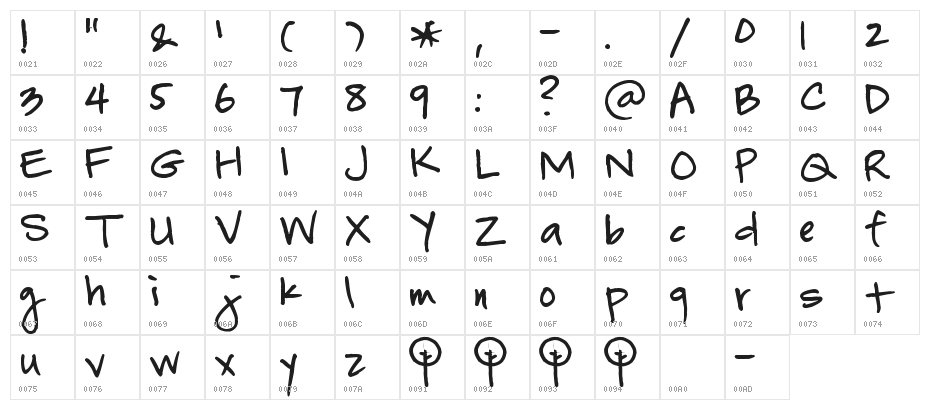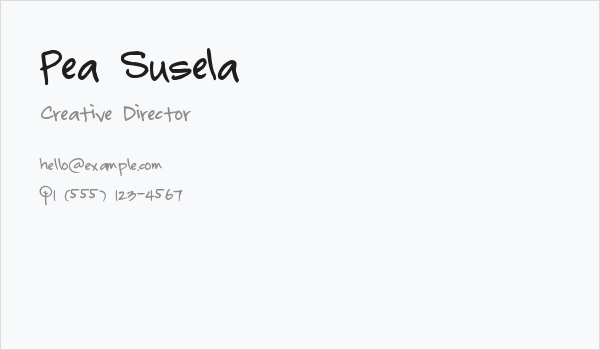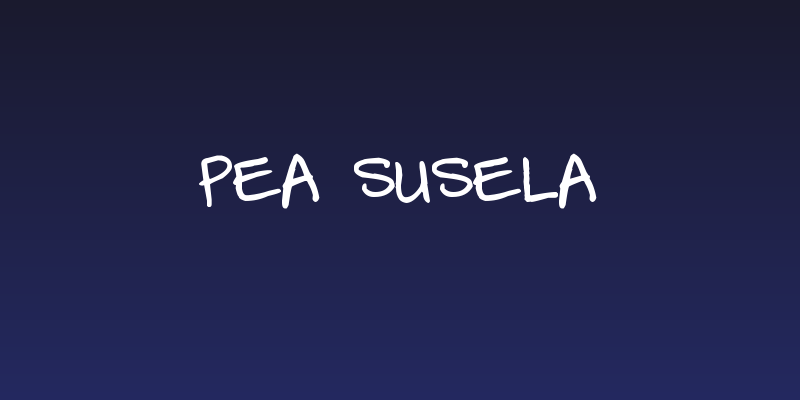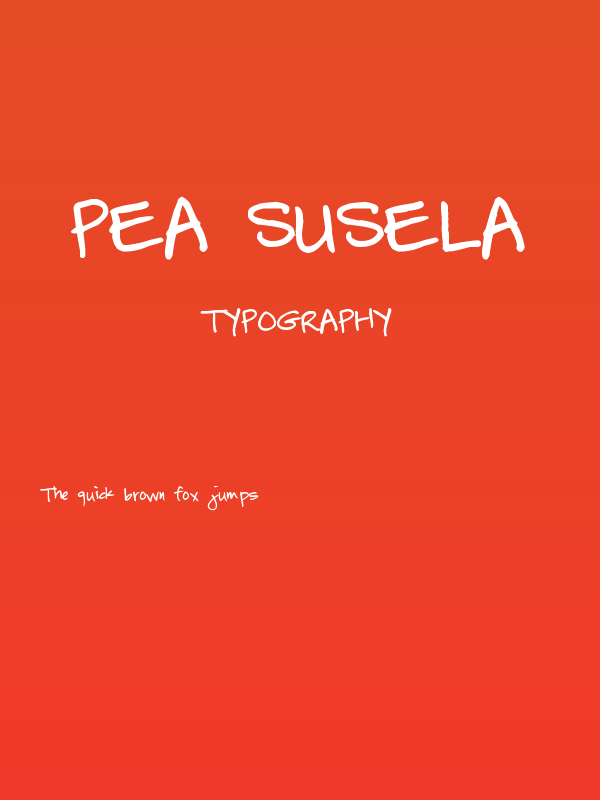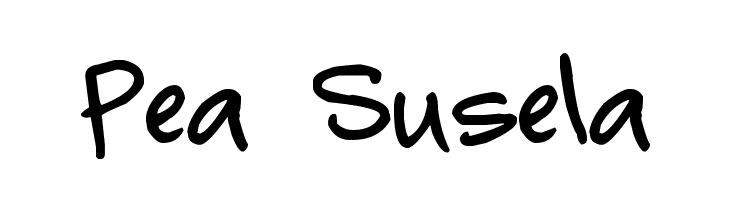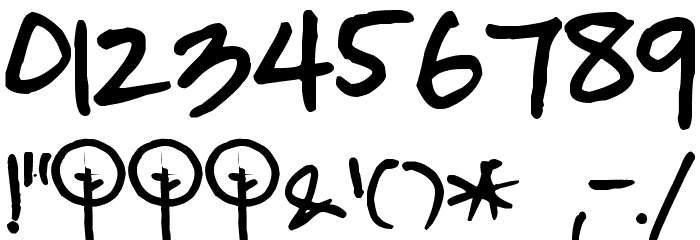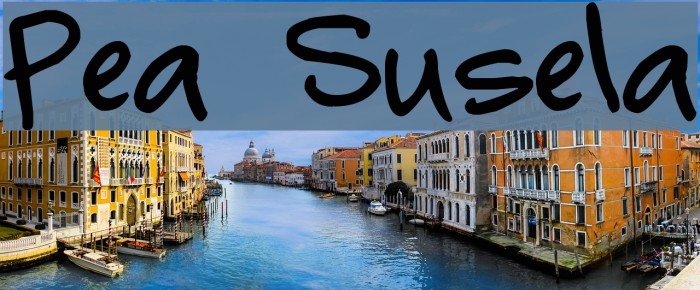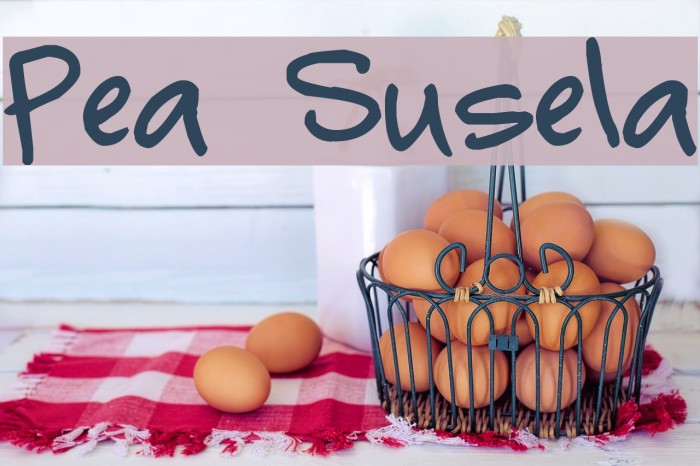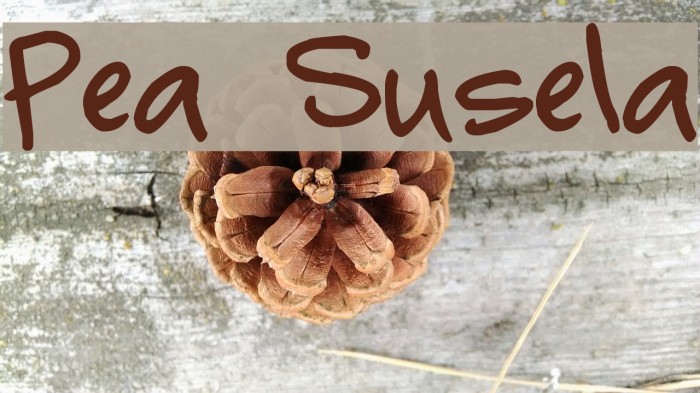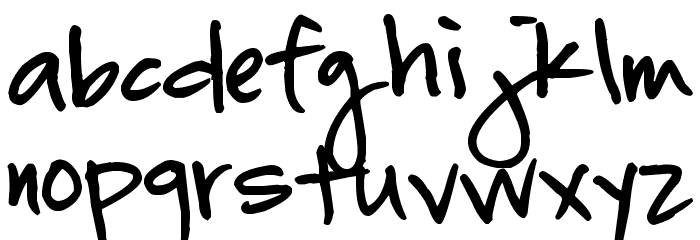
Pea Susela Font
Pea Susela Description
This font exudes a playful and casual handwritten style, characterized by its loose and flowing strokes. The letters are slightly slanted, giving a dynamic and informal appearance. The uppercase and lowercase letters maintain a consistent style, with rounded edges and a natural, organic feel. The numbers and special characters follow the same aesthetic, ensuring a cohesive look across all elements. This font is perfect for projects that require a personal touch or a relaxed vibe, such as greeting cards, invitations, or informal branding materials.
| Use Case | Headlines, Informal text, Personal projects |
| Proposed Projects | Ideal for greeting cards, invitations, personal branding, and informal communications. |